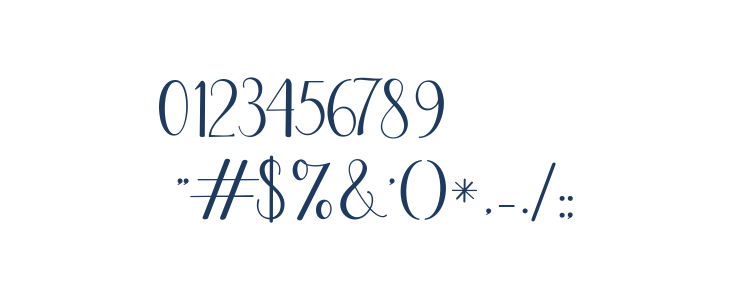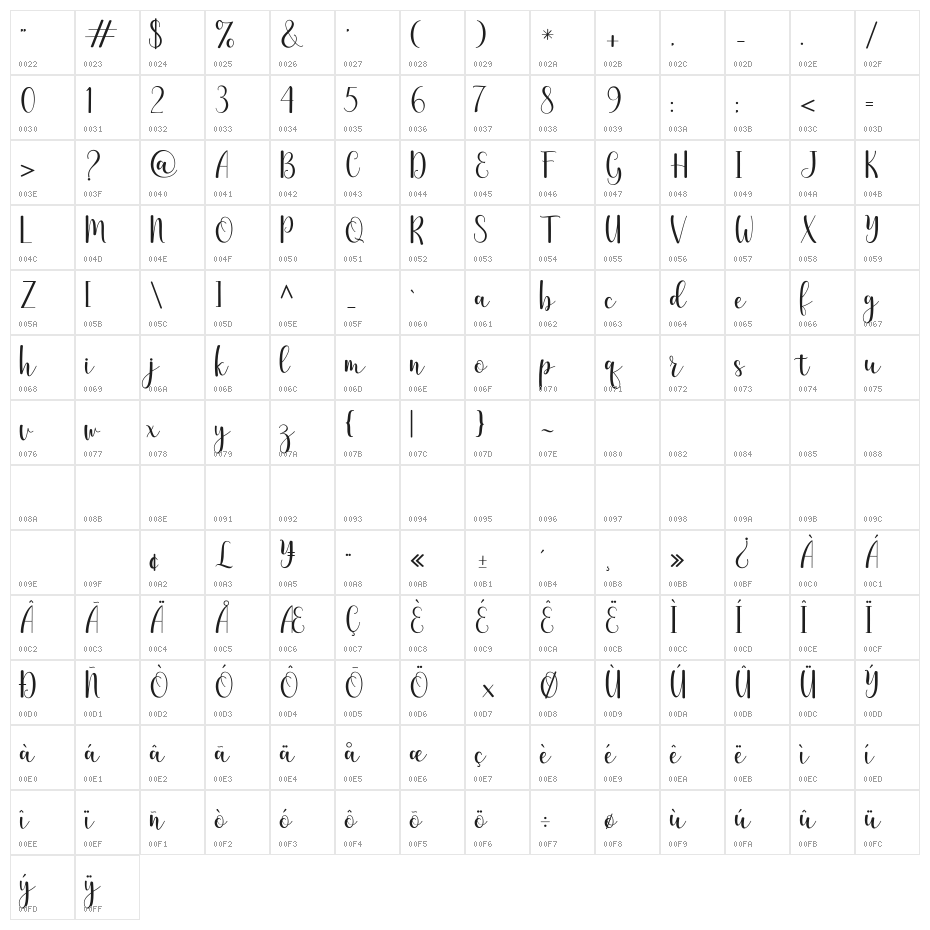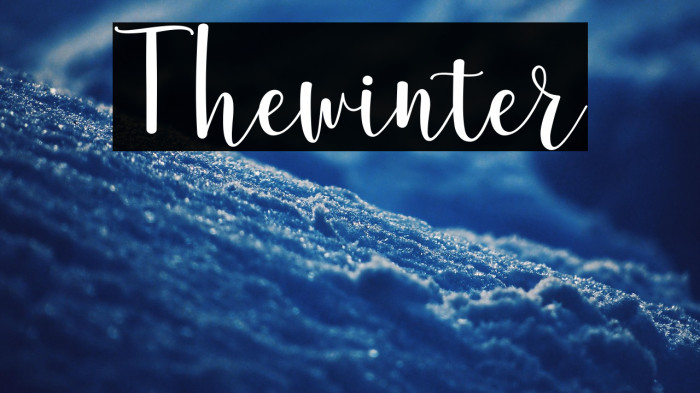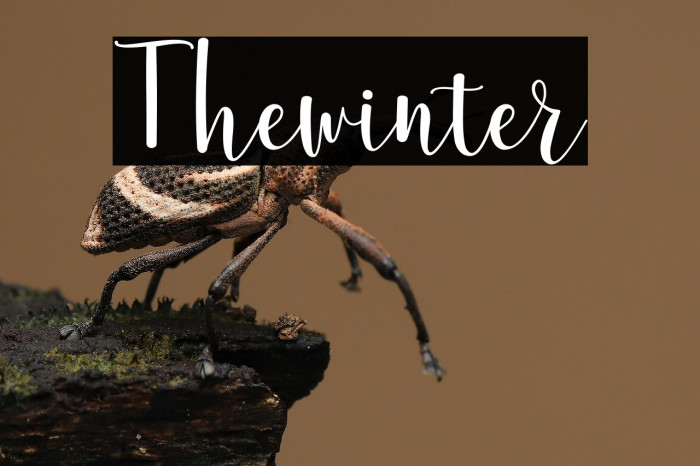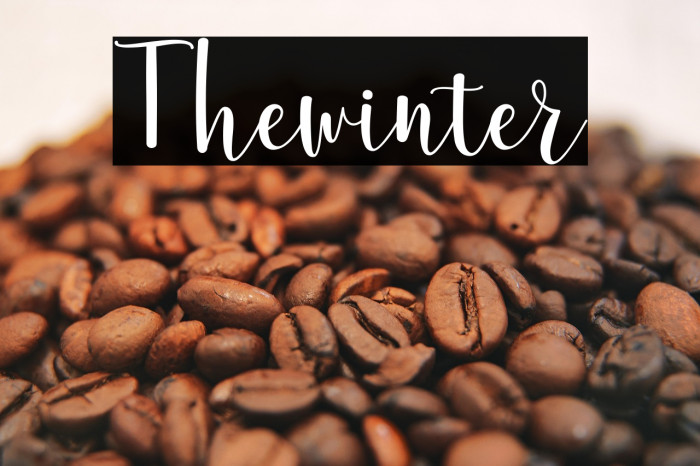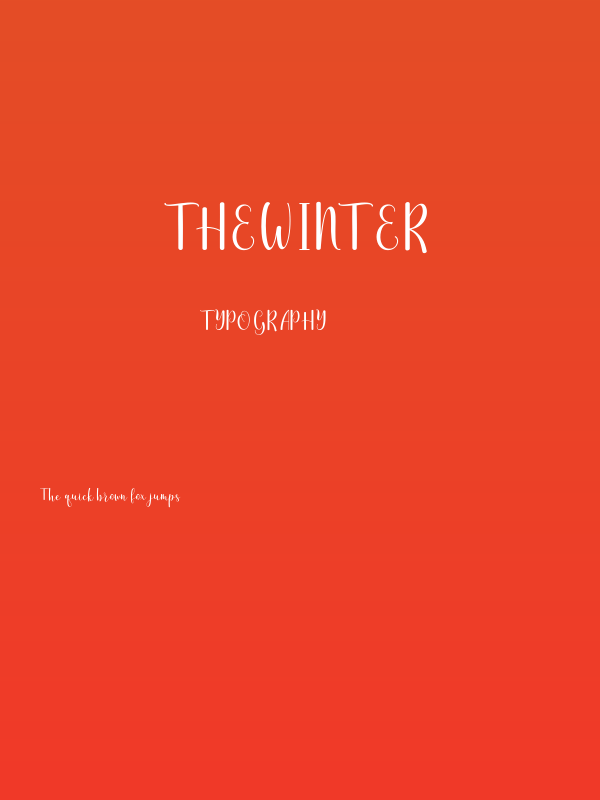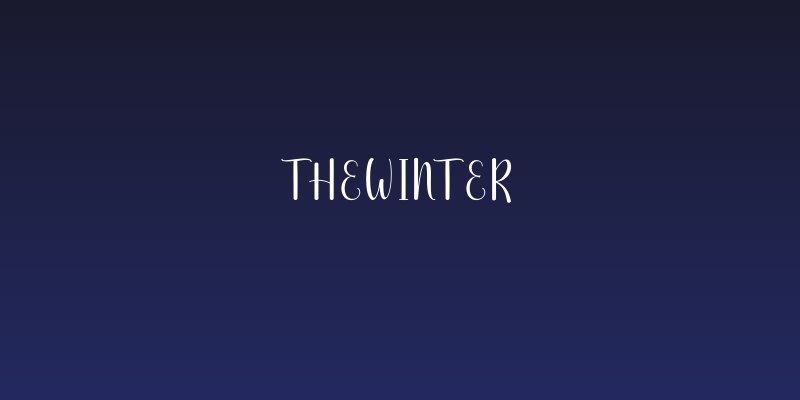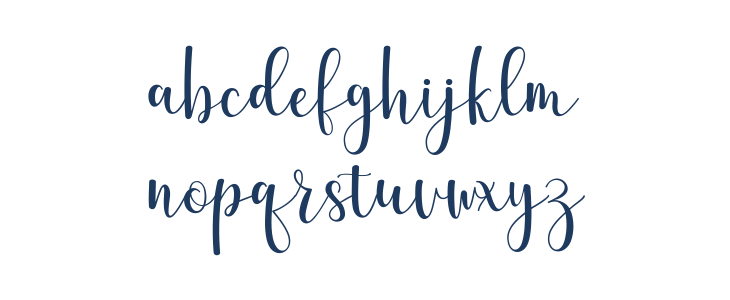
Thewinter Font
Thewinter Description
This font features a playful and elegant script style with a modern twist. The uppercase letters are tall and narrow, with a slight slant that adds a dynamic feel. The lowercase letters are more fluid and connected, resembling a handwritten style. The numbers are consistent with the overall aesthetic, maintaining the same playful curves. Special characters are creatively designed, fitting seamlessly with the letters and numbers. The overall look is both sophisticated and approachable, making it suitable for a variety of design projects.
| Use Case | Logos, Invitations, Headlines |
| Proposed Projects | Ideal for wedding invitations, greeting cards, branding, and social media graphics. |